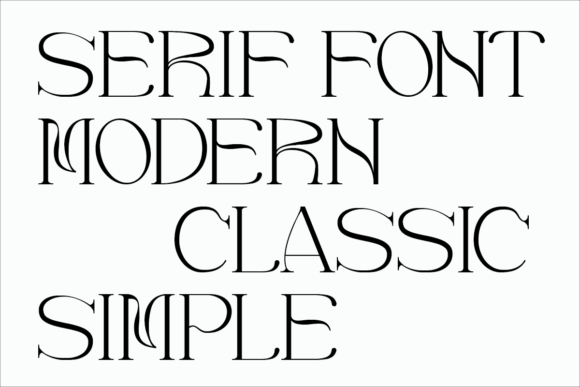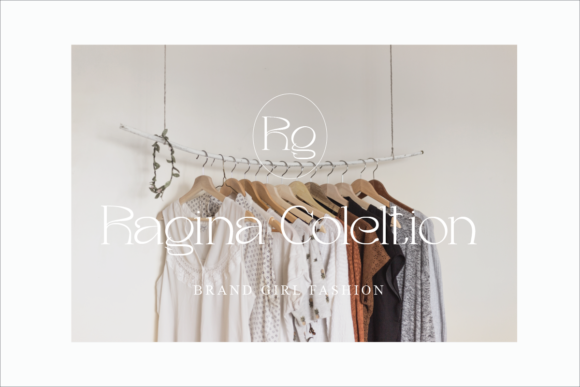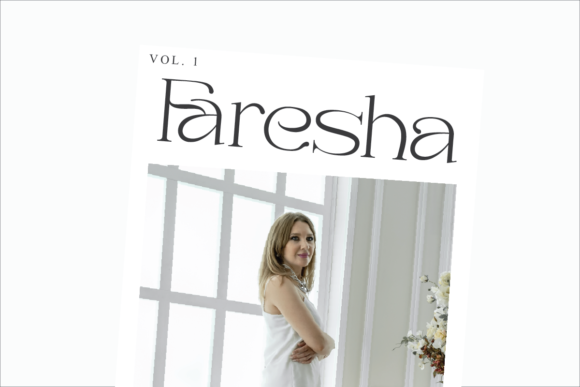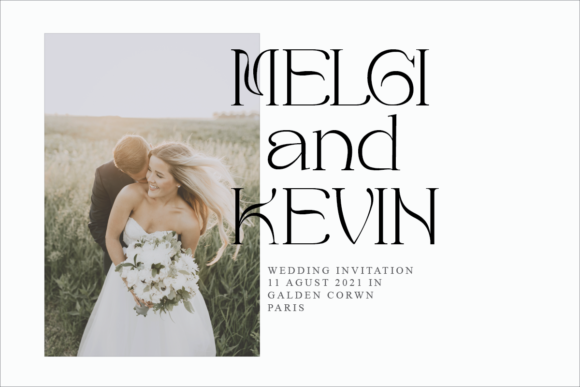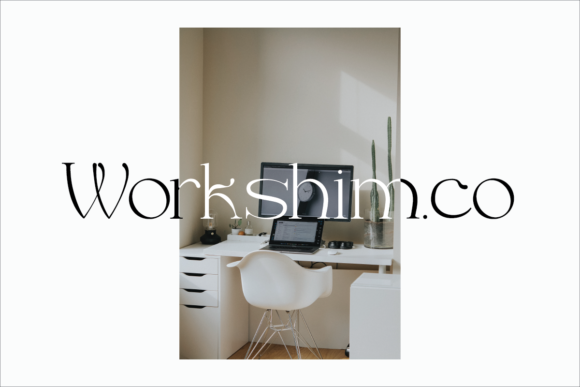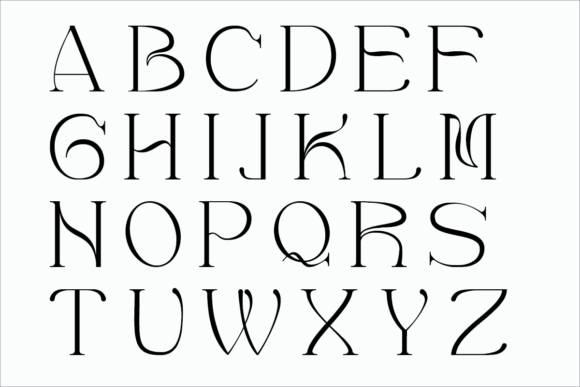
Bashan Font: Elevate Your Designs with a Modern and Friendly Serif
In the world of typography, fonts play a crucial role in conveying the message and aesthetic of a design. For designers and crafters seeking a beautiful and refreshing look, the Bashan font is an excellent choice. This modern and friendly serif font is specifically crafted to add a touch of elegance and sophistication to various design projects.
What is Bashan Font?
Bashan is a thoughtfully designed serif font that exudes a sense of warmth and approachability. Its unique characteristics make it an ideal choice for designers who want to create visually appealing and engaging designs. Whether you’re working on a branding project, website, or print material, Bashan font is sure to make a lasting impression.
Key Features of Bashan Font
So, what makes Bashan font stand out from the rest? Here are some of its key features:
- Modern and Friendly Design: Bashan font boasts a modern and friendly design that is perfect for creating a welcoming atmosphere in your designs.
- Smooth and Refined Lines: The font features smooth and refined lines that give it a sophisticated and elegant look.
- High Readability: Bashan font is designed to be highly readable, making it suitable for body text and other long-form content.
- Versatile: This font is versatile and can be used in a variety of design projects, from digital to print.
Benefits of Using Bashan Font
Using Bashan font in your designs comes with numerous benefits. Here are a few:
- Unique and Memorable: Bashan font helps create a unique and memorable visual identity for your brand or design project.
- Emotional Connection: The friendly and approachable design of Bashan font helps create an emotional connection with your audience.
- Time-Saving: With its high readability and versatility, Bashan font saves you time and effort in choosing a font that works well across different mediums.
How to Use Bashan Font in Your Designs
Using Bashan font in your designs is straightforward. Here are some tips to get you started:
- Pair it with Other Fonts: Experiment with pairing Bashan font with other fonts to create a unique and visually appealing typography.
- Adjust Font Sizes: Adjust font sizes to create a clear hierarchy of information and emphasize important elements.
- Play with Colors: Experiment with different colors to find the perfect combination that complements your design.
In conclusion, Bashan font is a modern and friendly serif font that can elevate your designs to the next level. Its unique characteristics, versatility, and high readability make it an excellent choice for designers and crafters seeking a beautiful and refreshing look. With Bashan font, you can create visually appealing and engaging designs that leave a lasting impression on your audience.